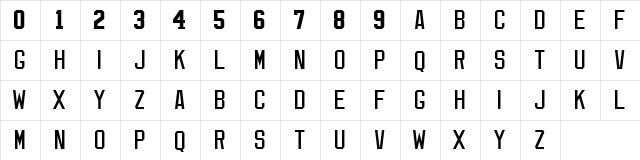
NHL NY Islanders Alternate Regular
Design Context for NHL NY Islanders Alternate Typeface
NHL NY Islanders Alternate is a composed and adaptable typeface that performs quietly and consistently across a wide range of design contexts.